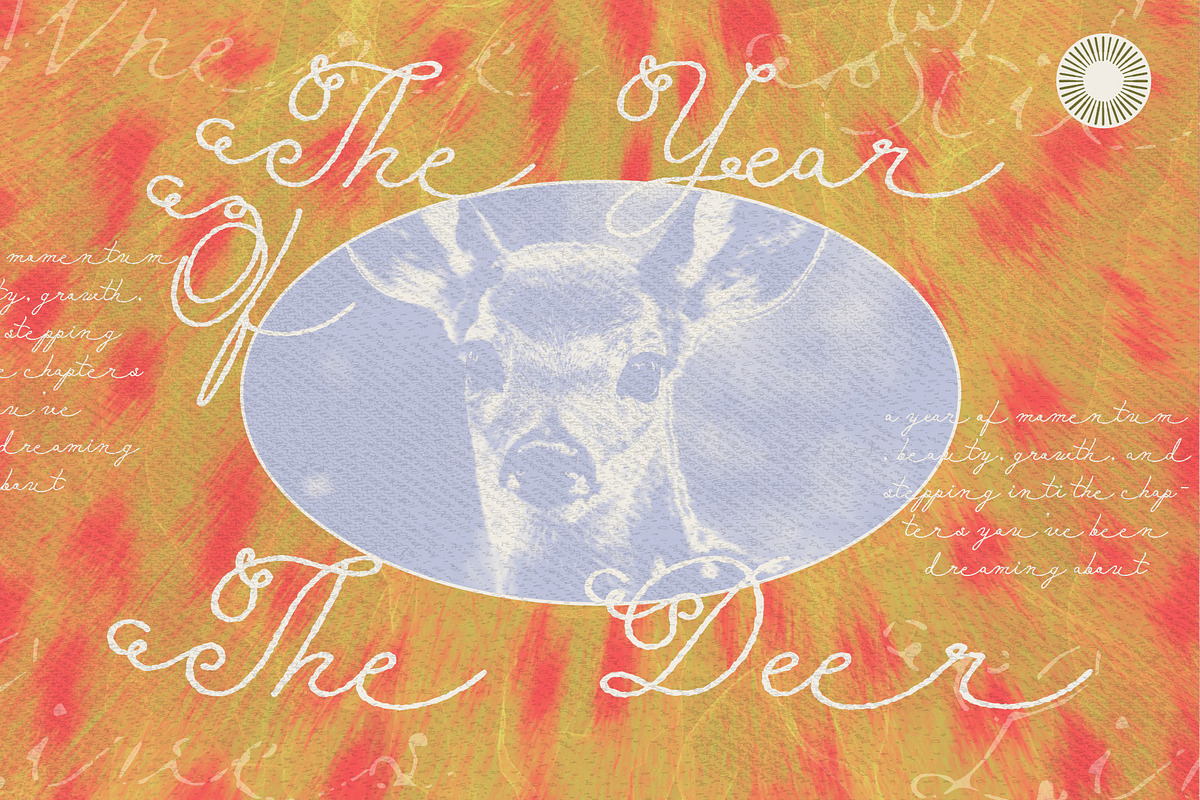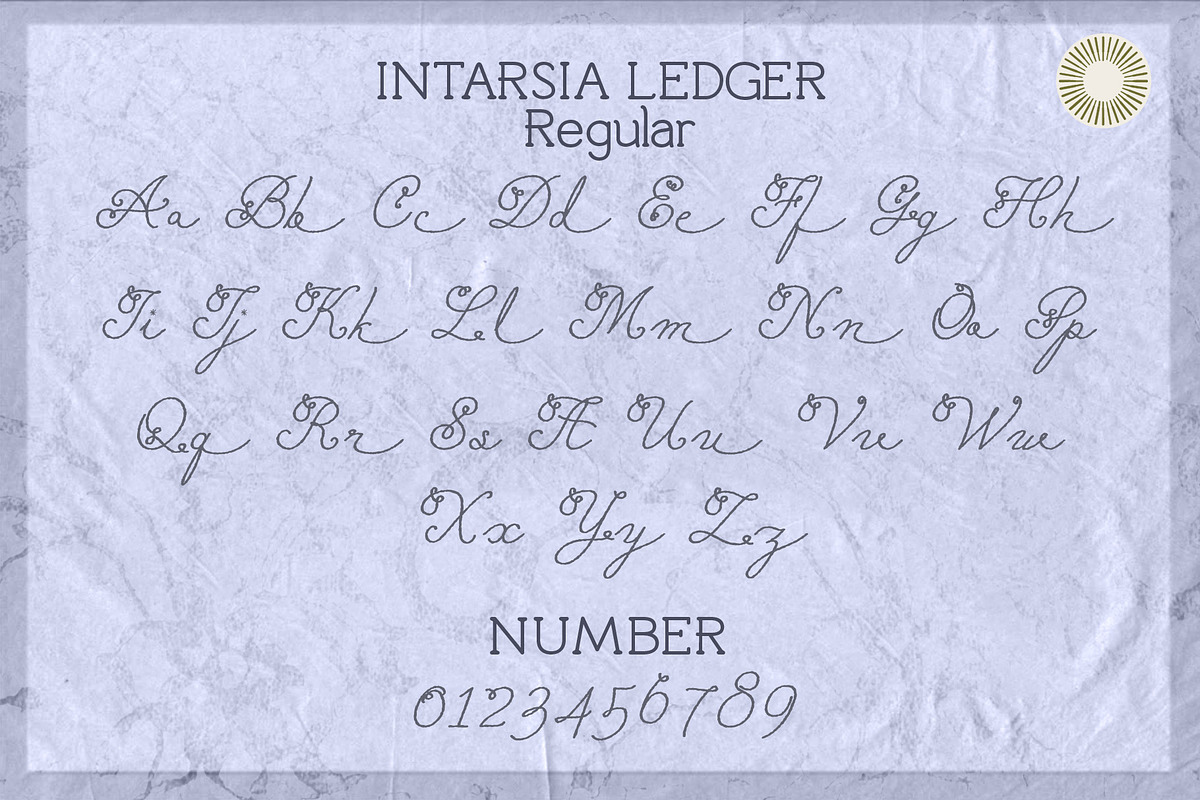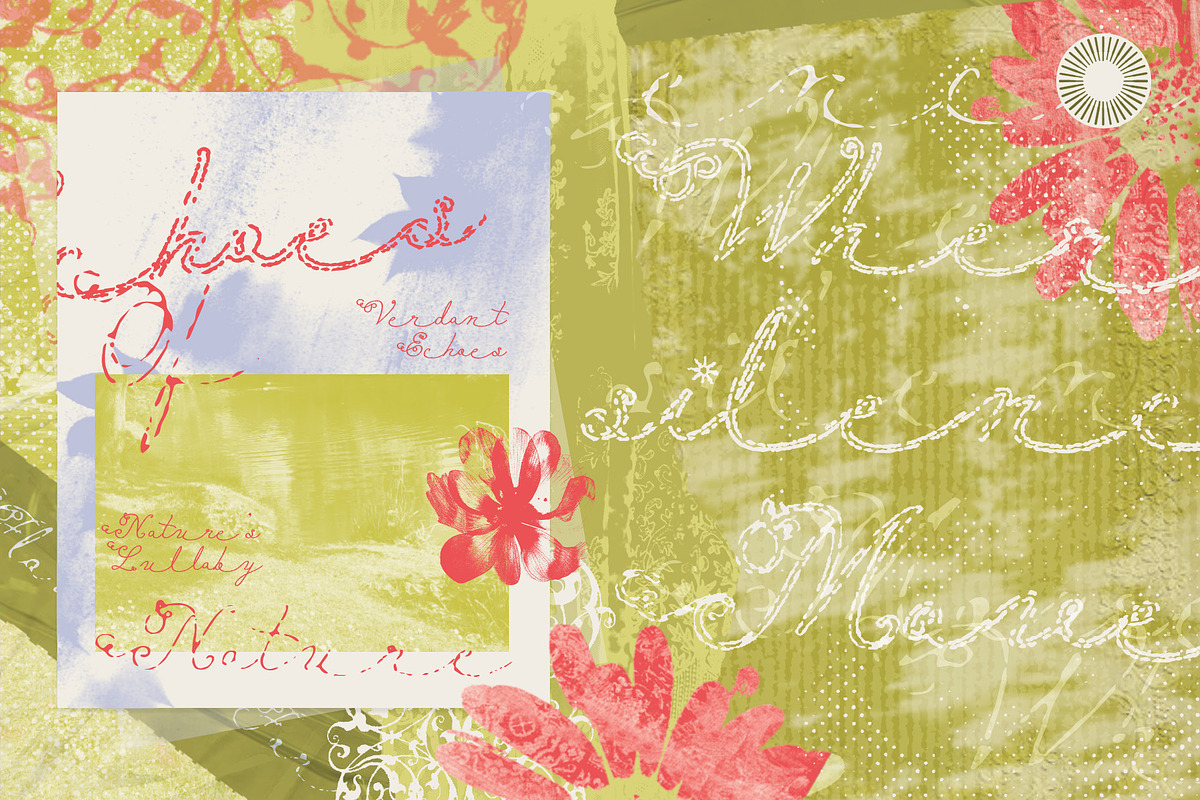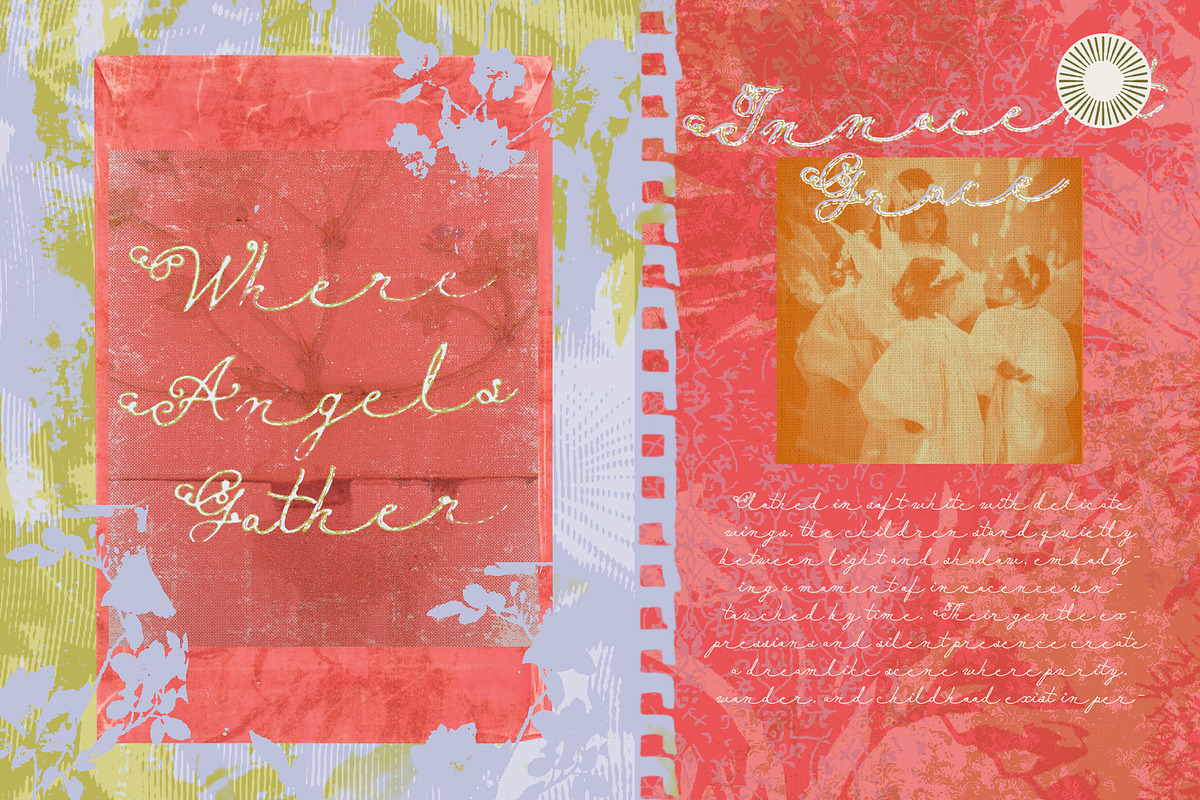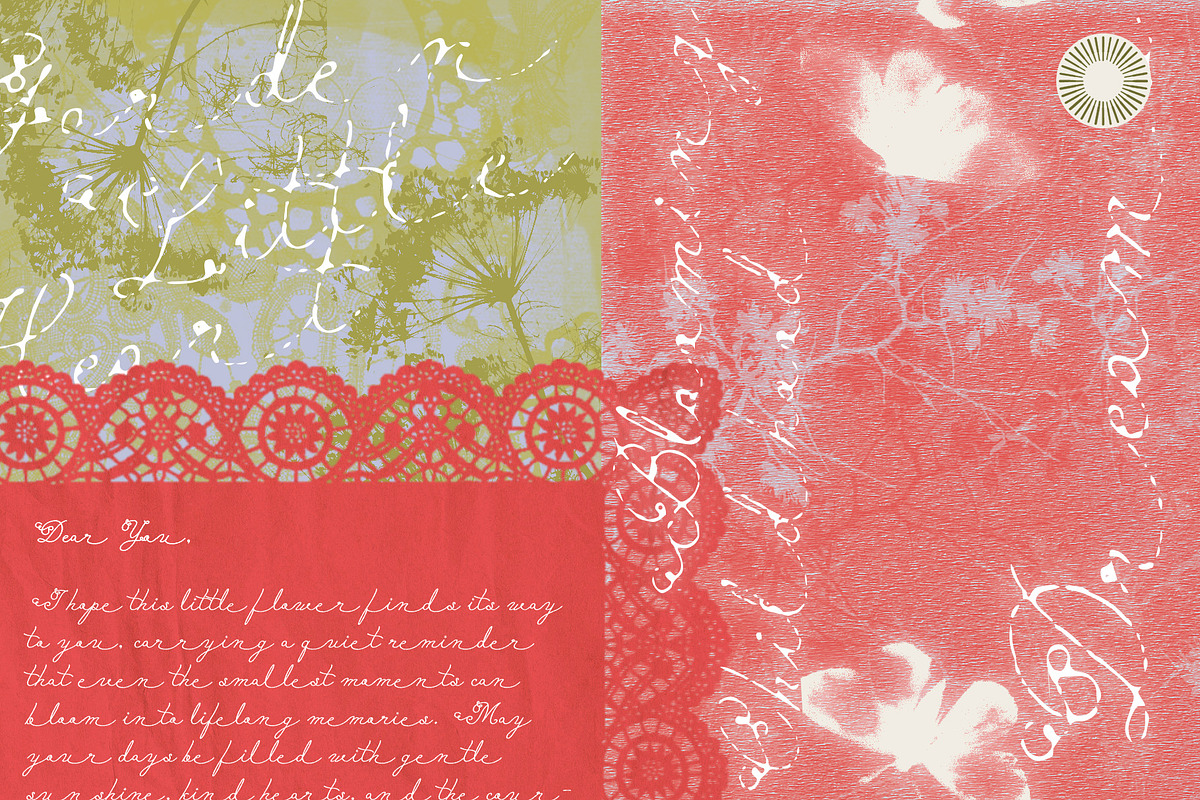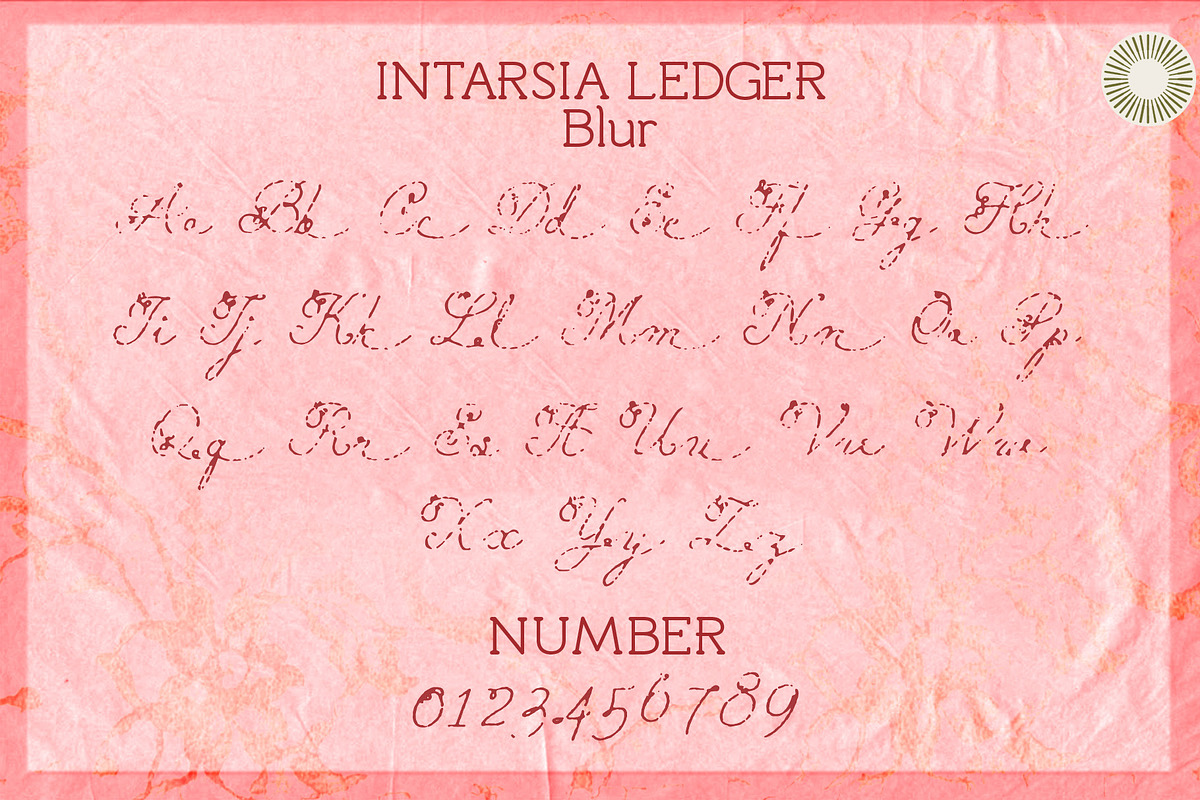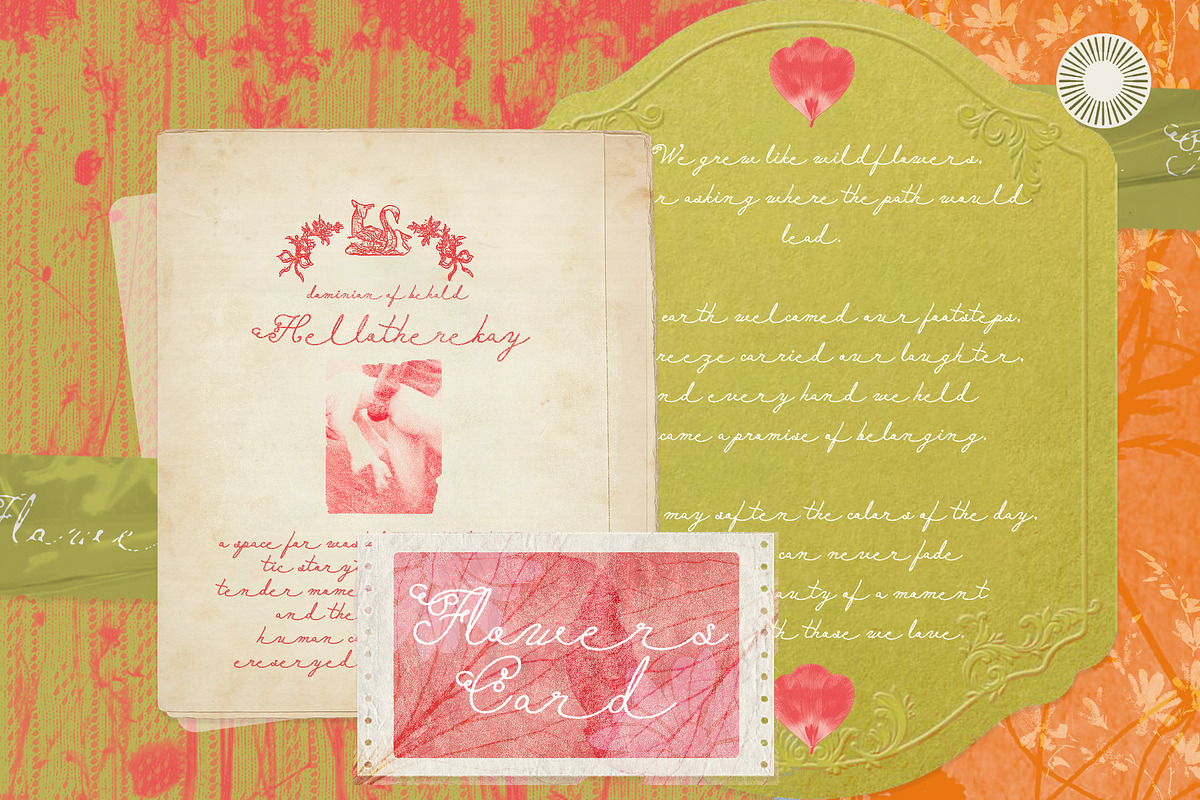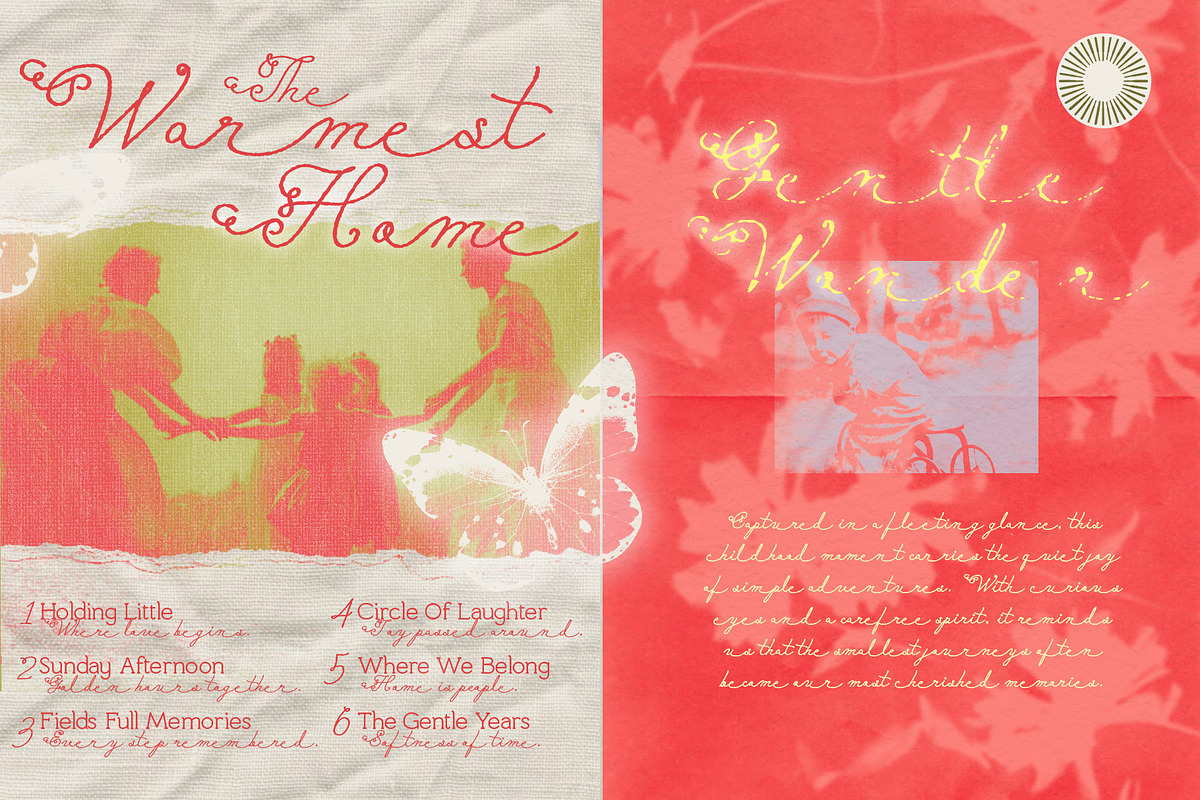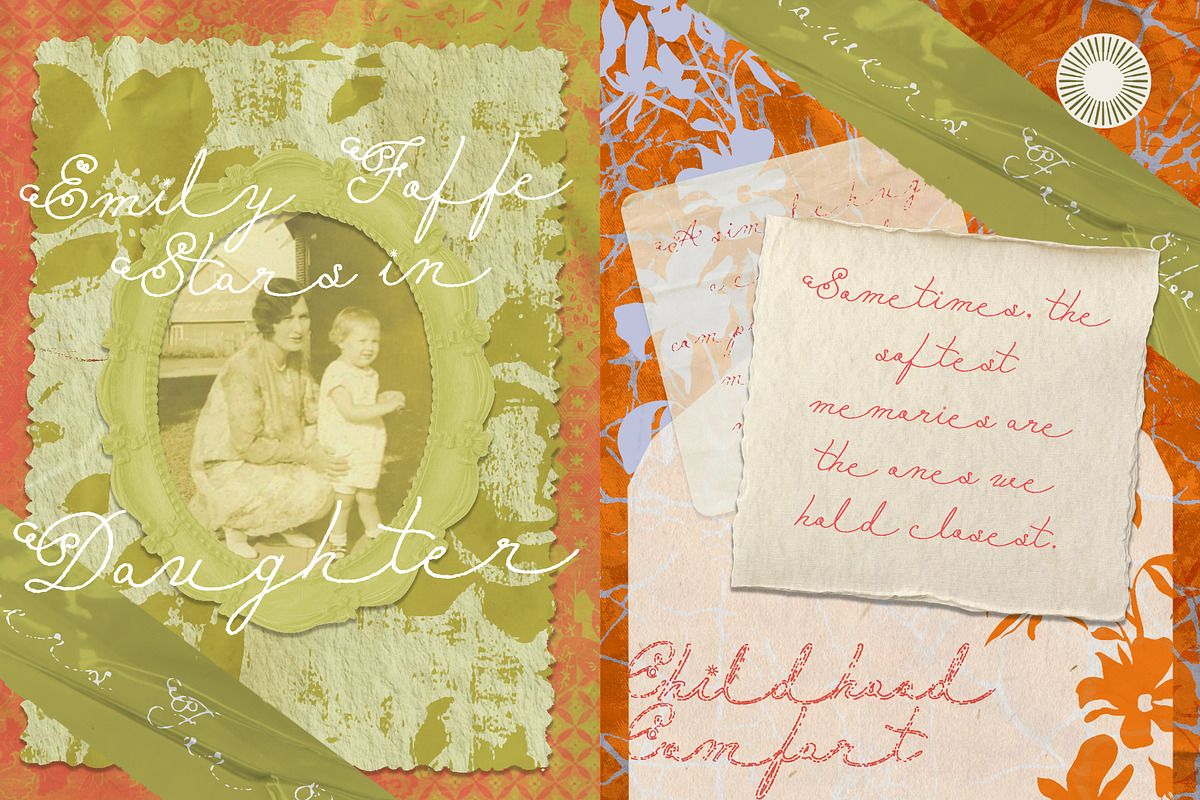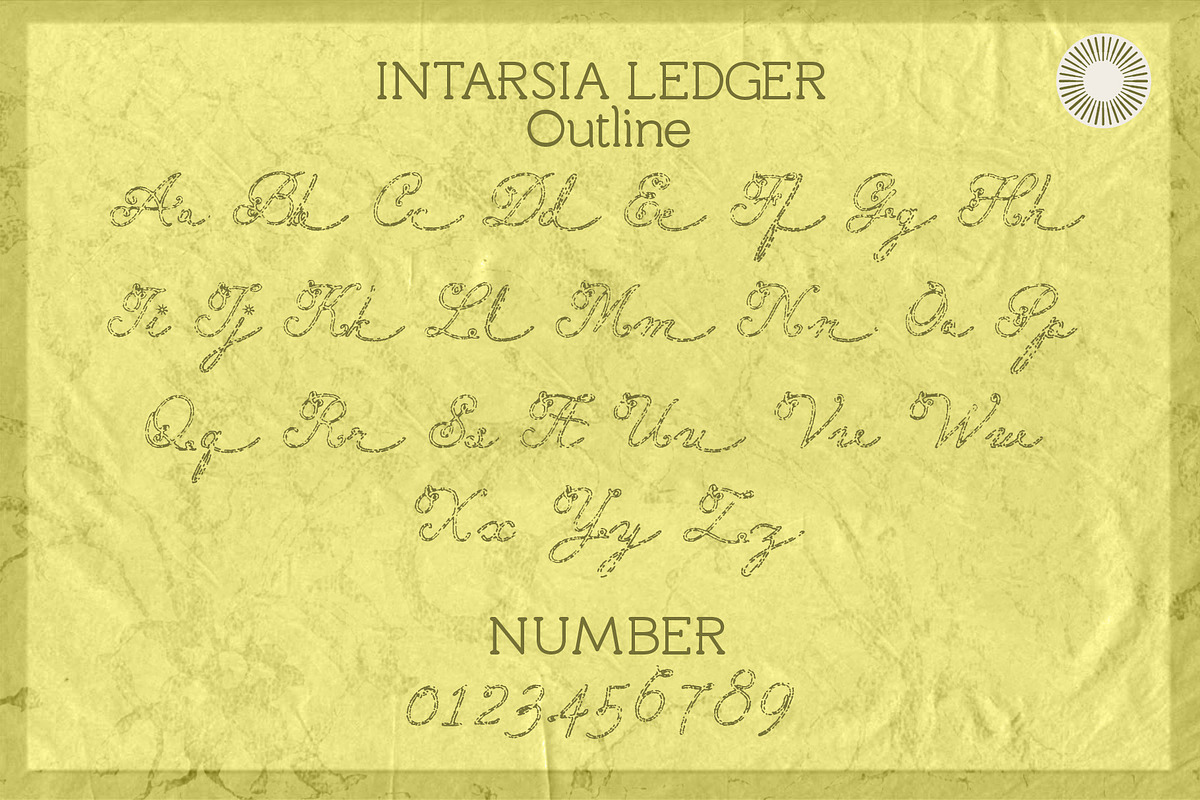
Intarsia Ledger - Artisan Script
Intarsia Ledger is an artisan-inspired layered script font that celebrates the timeless beauty of handcrafted wood inlay and traditional craftsmanship. Inspired by the intricate patterns of intarsia woodworking, it combines expressive lettering with ornamental details to create typography rich in texture, depth, and character.
Featuring three expressive font layers, Intarsia Ledger lets you build unique typographic compositions with dimensional detail and handcrafted charm. Whether used individually or layered together, each style adds personality while preserving a refined, artistic look.
Designed for creators who love heritage-inspired aesthetics, this font blends vintage elegance with modern versatility, making it perfect for projects that deserve a handcrafted touch.
Three-layer font system
Inspired by traditional intarsia woodcraft
Artisan handcrafted aesthetic
Vintage ornamental character
Layered typography for creative depth
Rich expressive details
Branding, editorial design, book covers, artisan products, packaging, logos, invitations, restaurant branding, cafés, boutique businesses, posters, stationery, fantasy-inspired projects, and premium handcrafted visual identities.